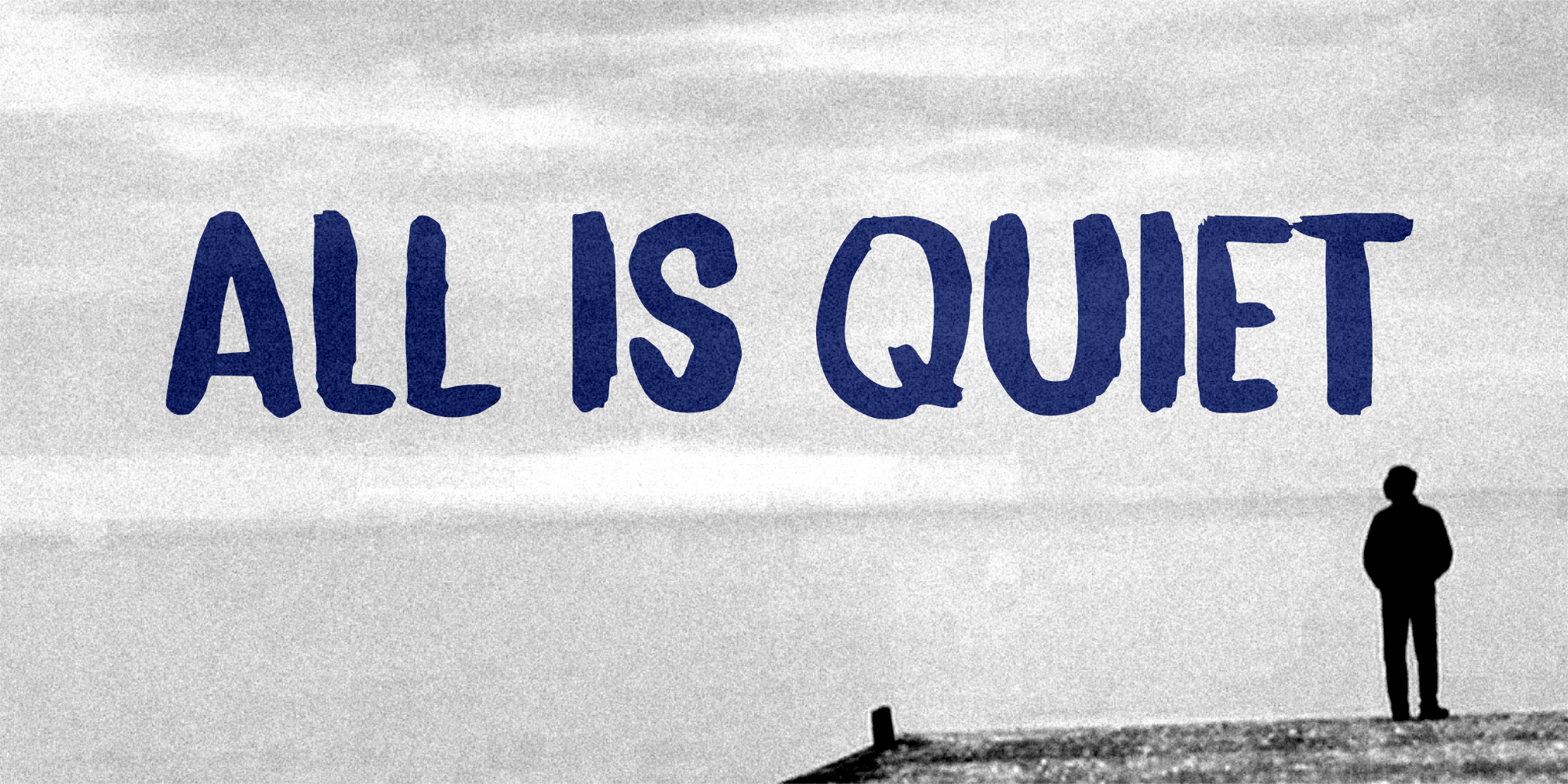
All Is Quiet Font excels in tranquil design applications including meditation center branding, spa and wellness materials, peaceful retreat signage, mindfulness app interfaces, yoga studio identity, zen garden graphics, relaxation product packaging, and serene advertising campaigns that require typography with calming character and peaceful sophistication.
What makes All Is Quiet Font exciting is its remarkable ability to evoke deep tranquility and inner peace through gently crafted letterforms that embody the essence of silence and contemplative stillness. This soothing typeface features soft, flowing characteristics with minimal details and harmonious proportions that instantly communicate serenity, mindfulness, and spiritual calm. The font's peaceful personality and meditative appeal make it perfect for brands seeking to establish connection with wellness-focused audiences and communicate values of tranquility, balance, and mindful living.
All Is Quiet Font family includes various weights and serene variations designed for comprehensive wellness communication. The family typically includes thin, light, regular, and medium weights, complemented by gentle italics, peaceful alternates, and extended character sets with zen symbols that enhance its tranquil aesthetic and provide maximum calming impact.
Wellness-focused designers consistently choose All Is Quiet Font Free Download for projects requiring typography that embodies inner peace and meditative tranquility. This calming typeface delivers exceptional visual harmony across wellness applications, from digital meditation platforms to peaceful spa environments, ensuring consistent brand messaging with unmistakable serene authority and mindful appeal. The font's gently crafted letterforms maintain excellent readability while delivering the peaceful presence that wellness brands demand. Mindfulness creative agencies worldwide rely on this tranquil typeface to communicate brand values of peace, balance, and spiritual wellness. Find your inner calm with All Is Quiet Font and create memorable visual communications that resonate with audiences who appreciate peaceful aesthetics, mindful living, and the transformative power of silence and contemplative design.